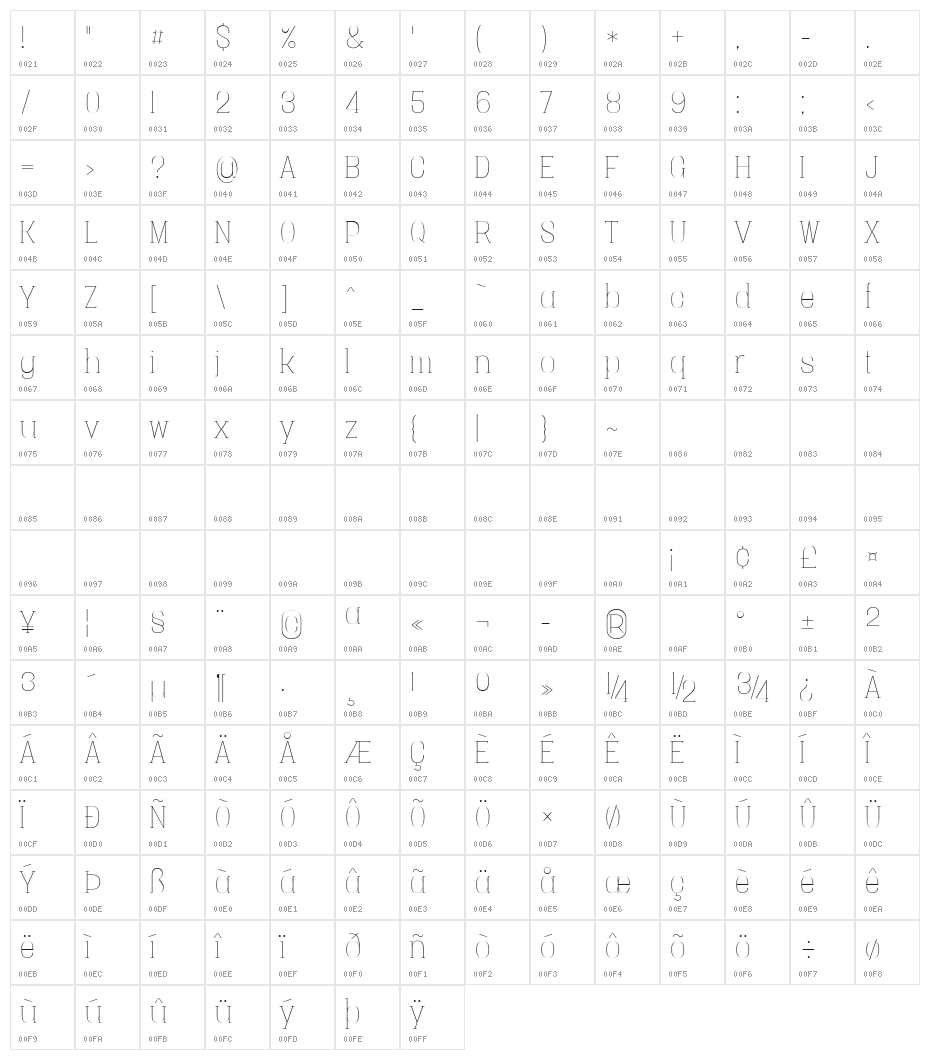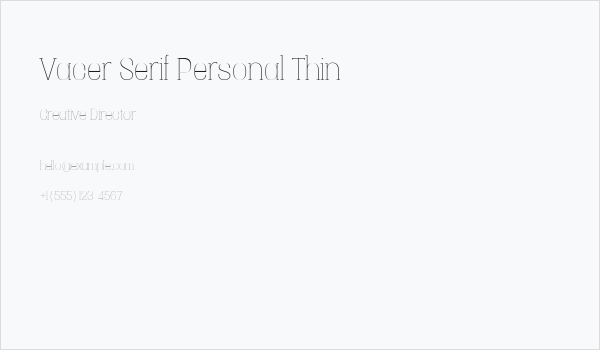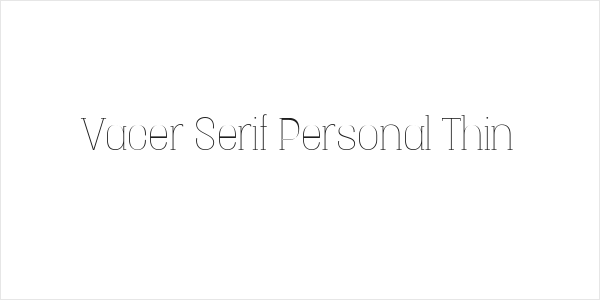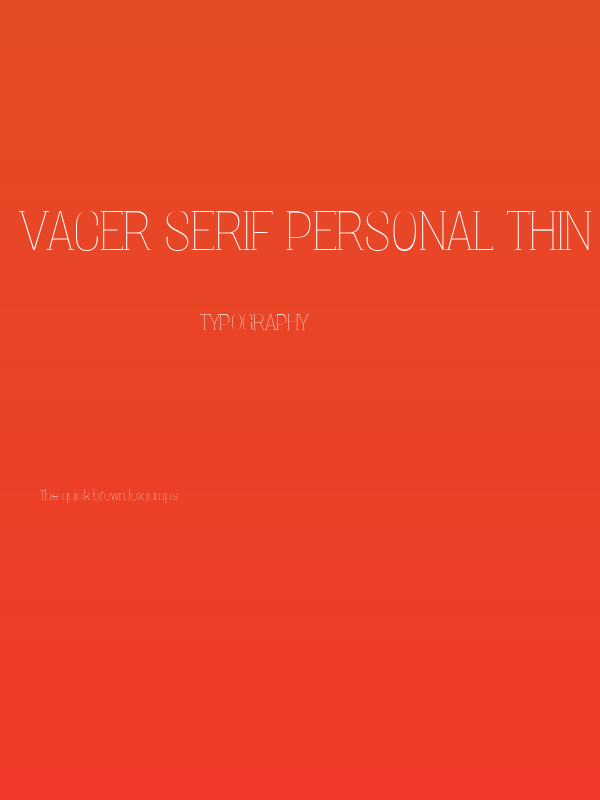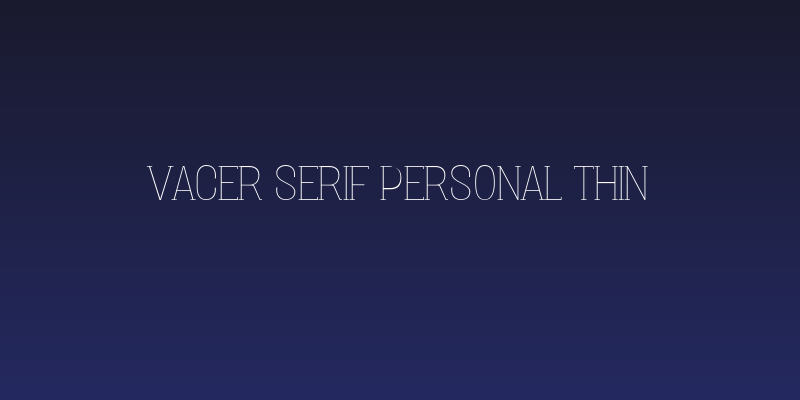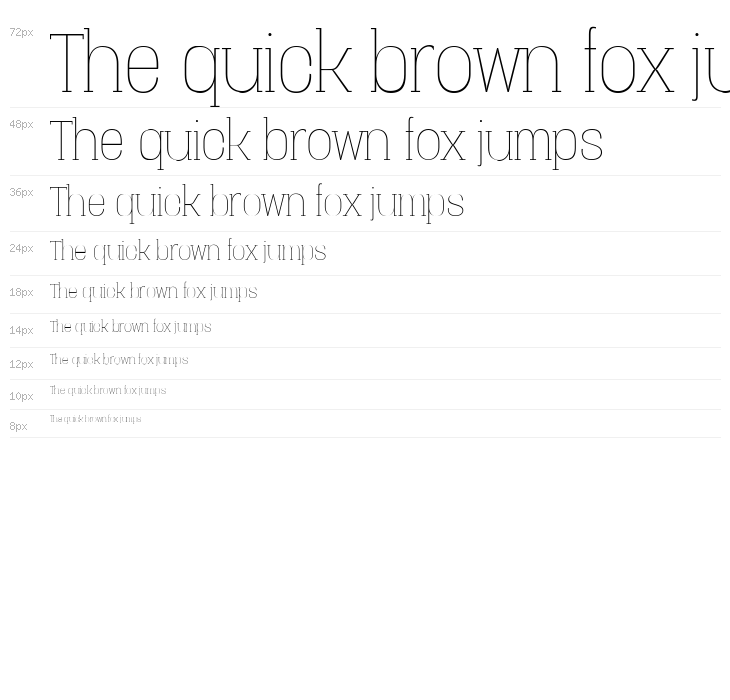
Vacer Serif Personal Thin Font
Vacer Serif Personal Thin Description
This font features a clean and elegant design with thin, elongated letterforms that convey a sense of modern sophistication. The characters are well-defined with a consistent stroke width, giving it a sleek and minimalistic appearance. The uppercase and lowercase letters maintain a harmonious balance, while the numerals and special characters are crafted to complement the overall aesthetic. This font's thin lines and open spacing make it ideal for projects that require a refined and contemporary look.